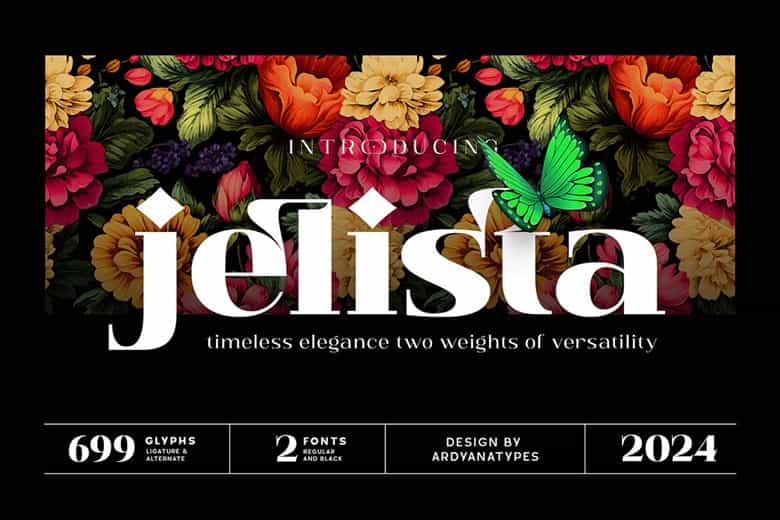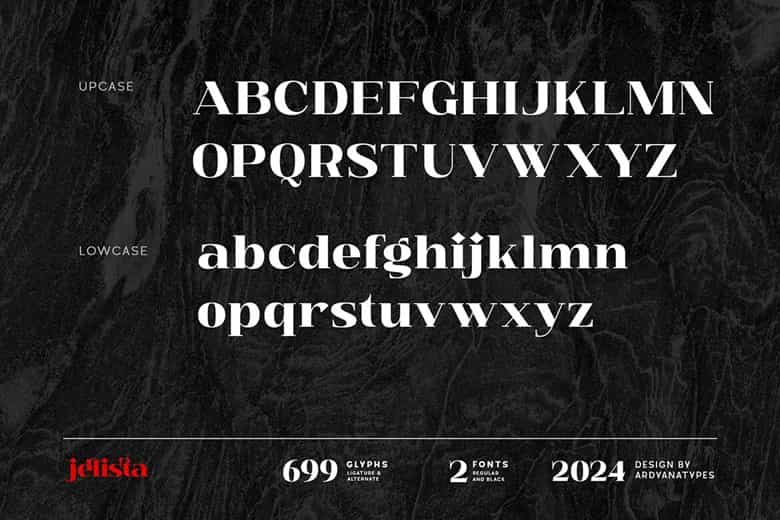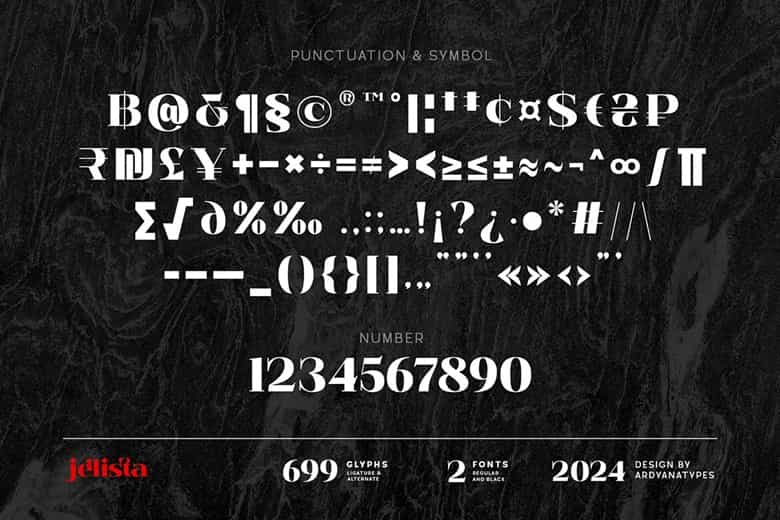
Jelista is a serif font that contains a special touch and a strong aesthetic appeal. The design of Jelista is based on the principles of legibility of classical lettering with a contemporary twist in the forms: the strokes are both powerful and graceful. This font is designed with a high level of linguistic support for many languages, many fancy ligatures to achieve smooth and coherent text, and a variety of alternates to provide possibilities in any application.